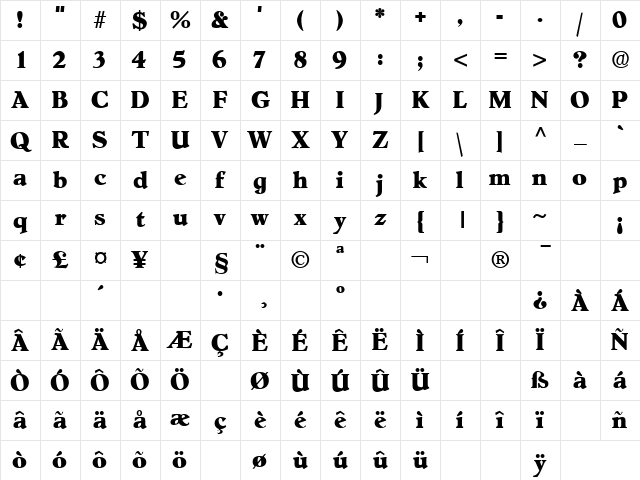
OldCentury Regular
Complete OldCentury Regular glyph index. Displaying only characters natively supported by OldCentury Regular font.
Design Context for OldCentury
OldCentury is a composed and adaptable typeface that performs quietly and consistently across a wide range of design contexts.